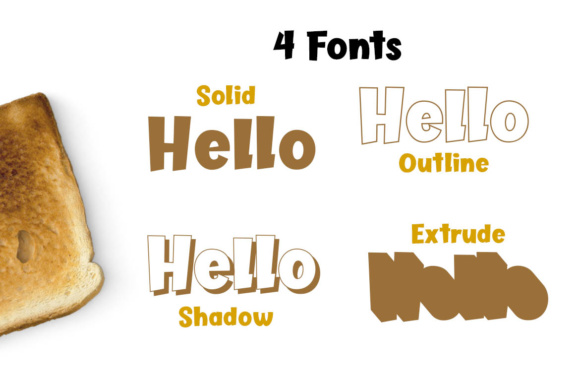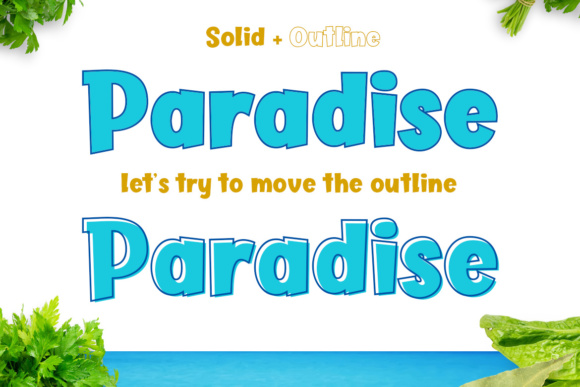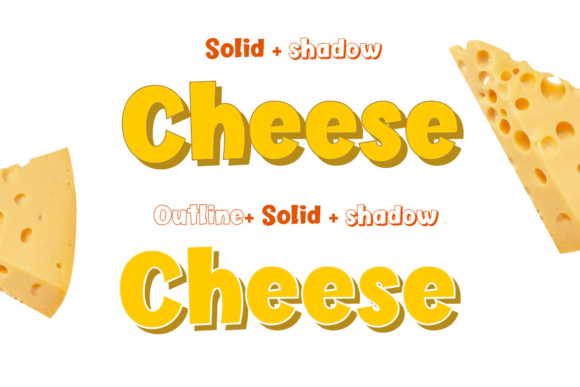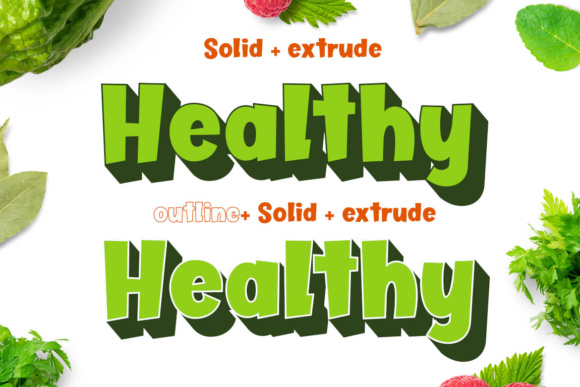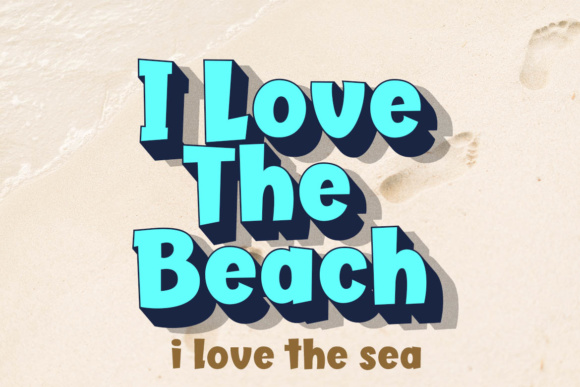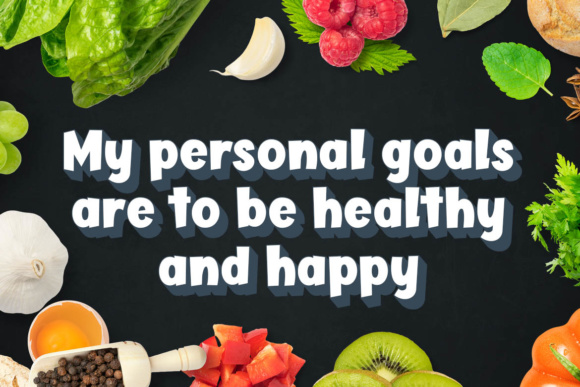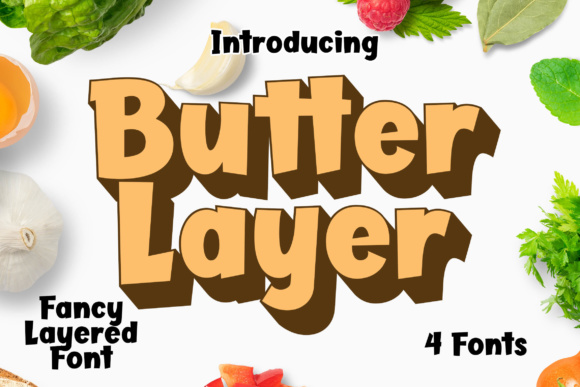
The Butter Layer Font: A Deliciously Layered and Fancy Font for Designers and Crafters
Are you tired of using the same old fonts for your design projects? Look no further than the Butter Layer Font! This layered, fancy font is a game-changer for designers and crafters alike. With its unique and playful style, it’s perfect for a wide range of projects, from logos and posters to menus and educational materials.
What is the Butter Layer Font?
The Butter Layer Font is a layered font that features a fun and whimsical design. Its layered style allows for a high level of customization, making it easy to create unique and eye-catching text. Whether you’re looking to add a touch of elegance or a dash of playfulness to your project, this font is sure to deliver.
Uses for the Butter Layer Font
So, what can you use the Butter Layer Font for? The possibilities are endless! Here are just a few ideas to get you started:
• Logos: Create a memorable and eye-catching logo for your business or brand with the Butter Layer Font.
• Posters: Add a touch of whimsy and fun to your posters with this playful font.
• Menus: Make your restaurant or cafe stand out with a custom menu featuring the Butter Layer Font.
• Clothing: Design unique and stylish apparel with this fun and layered font.
• Education projects: Add a touch of personality to your educational materials, such as worksheets, presentations, and more.
Benefits of Using the Butter Layer Font
So, why choose the Butter Layer Font for your design projects? Here are just a few benefits:
• Unique and eye-catching: This font is sure to grab attention and make your project stand out.
• Highly customizable: With its layered design, you can easily customize the font to fit your needs.
• Versatile: The Butter Layer Font can be used for a wide range of projects, from logos and posters to menus and educational materials.
Tips for Using the Butter Layer Font
Here are a few tips for getting the most out of the Butter Layer Font:
• Experiment with different colors: The layered design of this font looks great with a variety of colors, so don’t be afraid to get creative!
• Play with layering: Take advantage of the font’s layered design to create unique and interesting text effects.
• Use it sparingly: While the Butter Layer Font is fun and playful, it can be overwhelming if used too much. Use it sparingly to add emphasis and interest to your project.
The Butter Layer Font is a fun and versatile font that’s perfect for designers and crafters alike. With its unique and layered design, it’s sure to add a touch of personality and whimsy to your projects. Whether you’re looking to create a logo, poster, menu, or educational materials, this font is sure to deliver. So why wait? Give the Butter Layer Font a try today and see the difference it can make in your design projects!